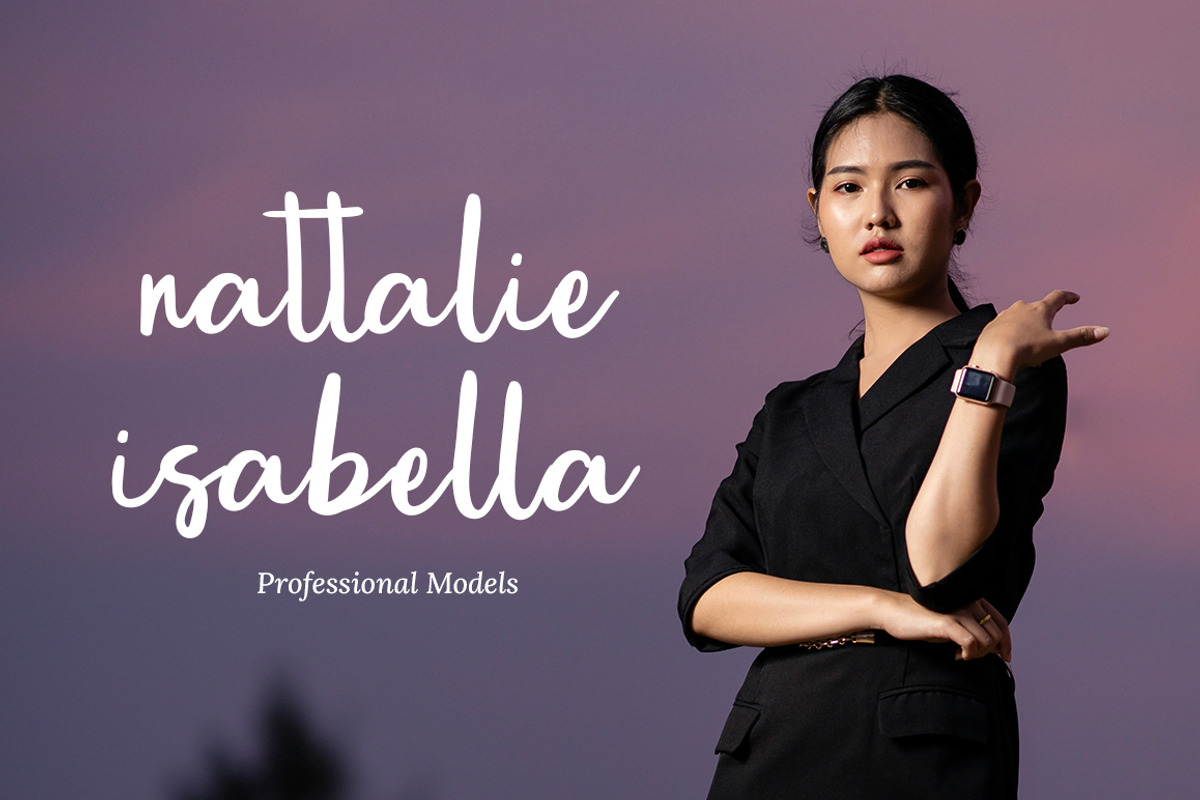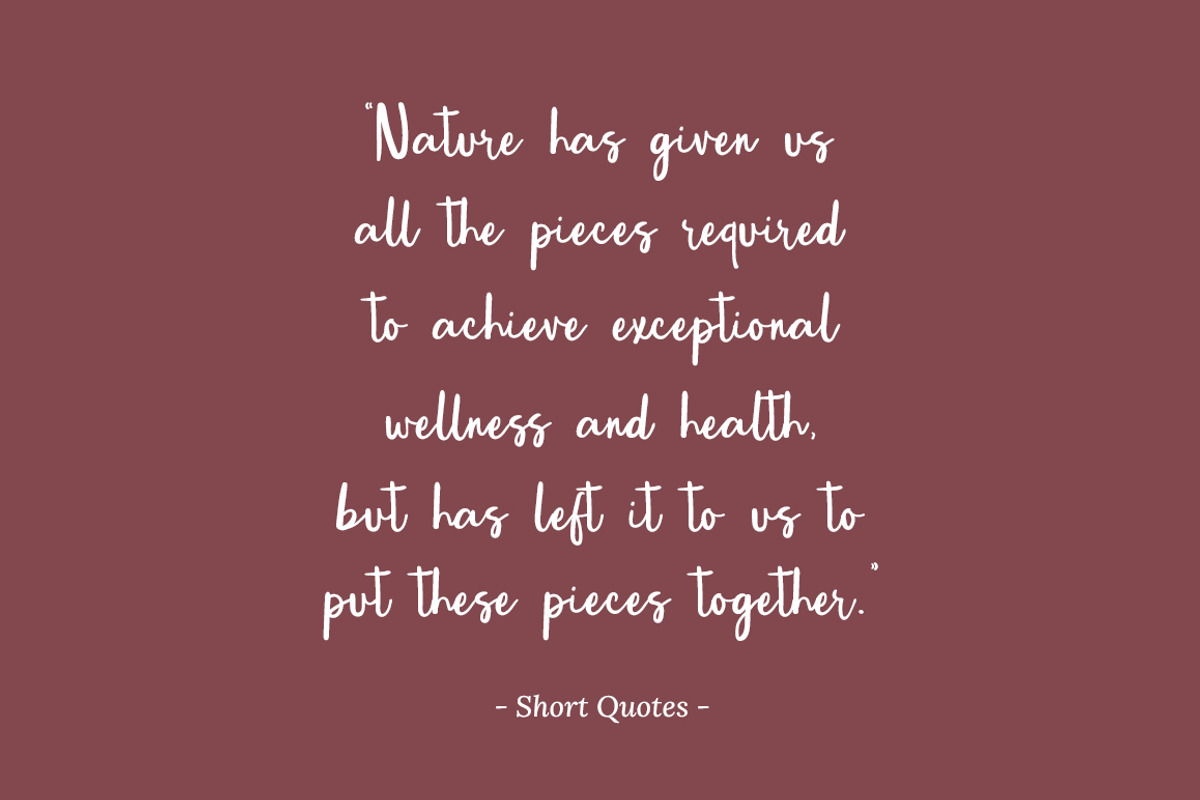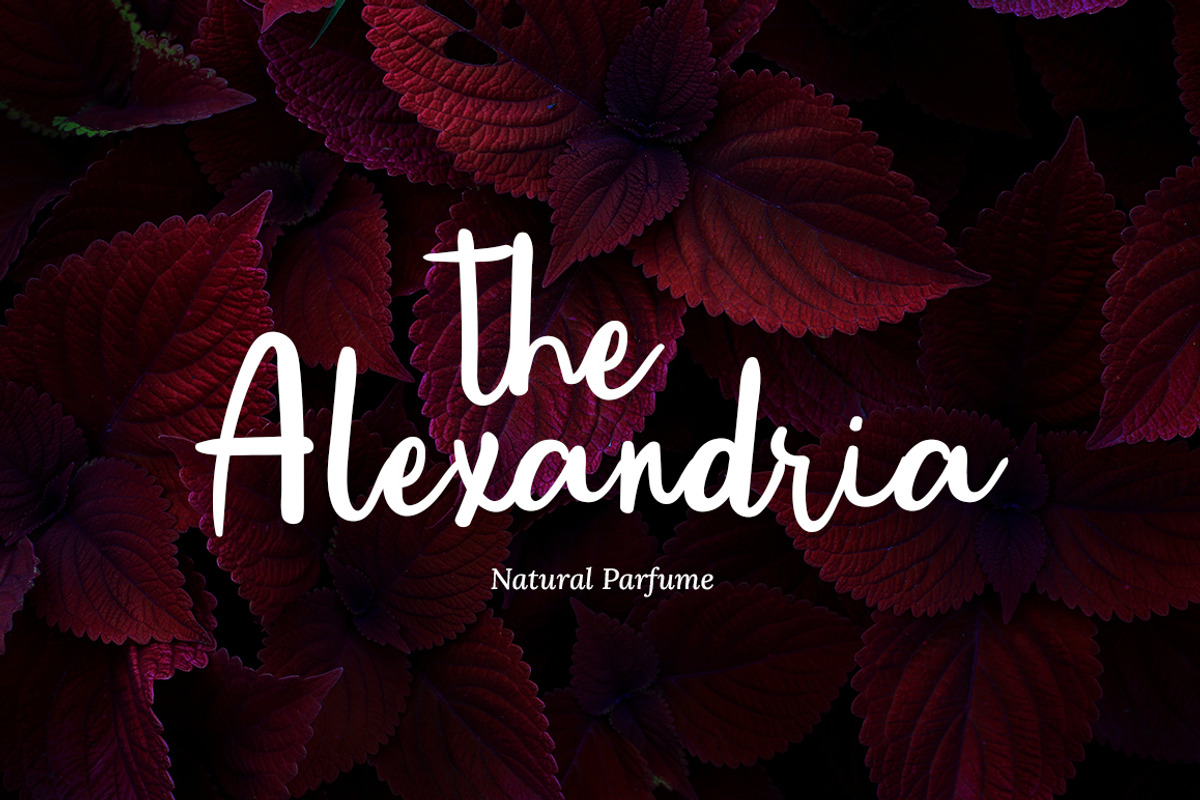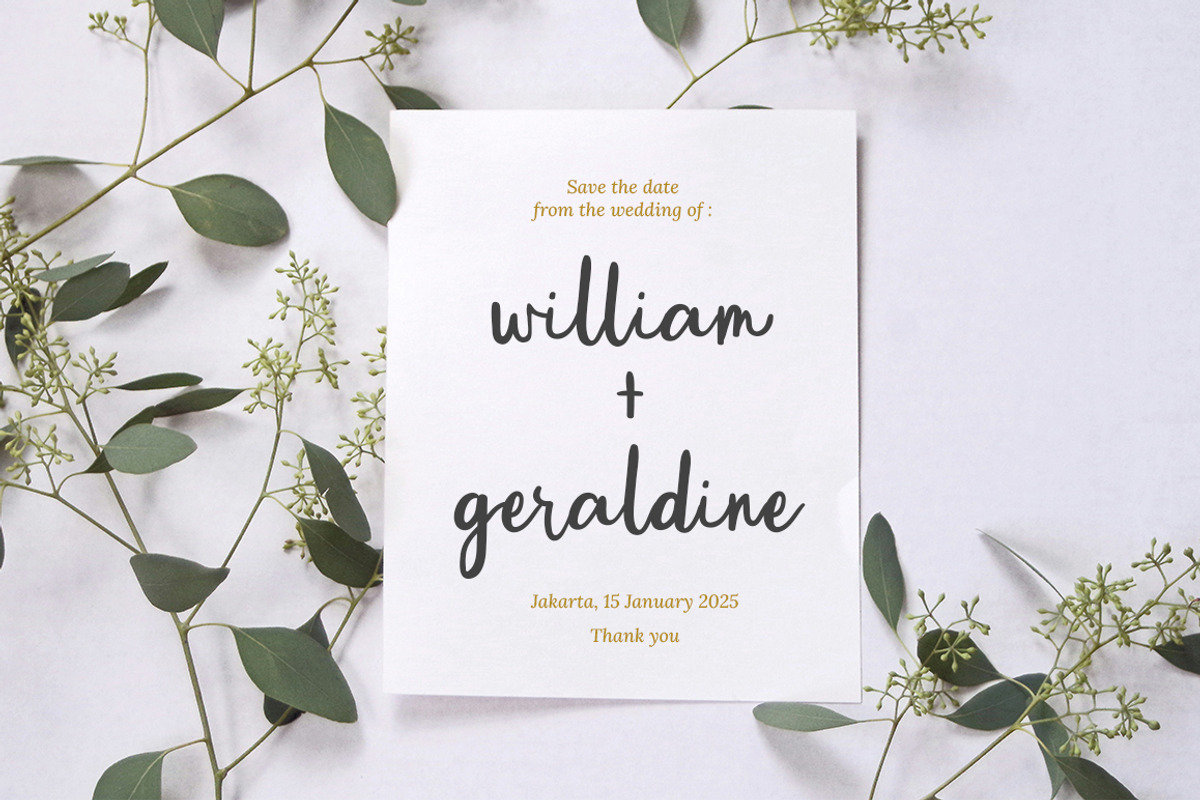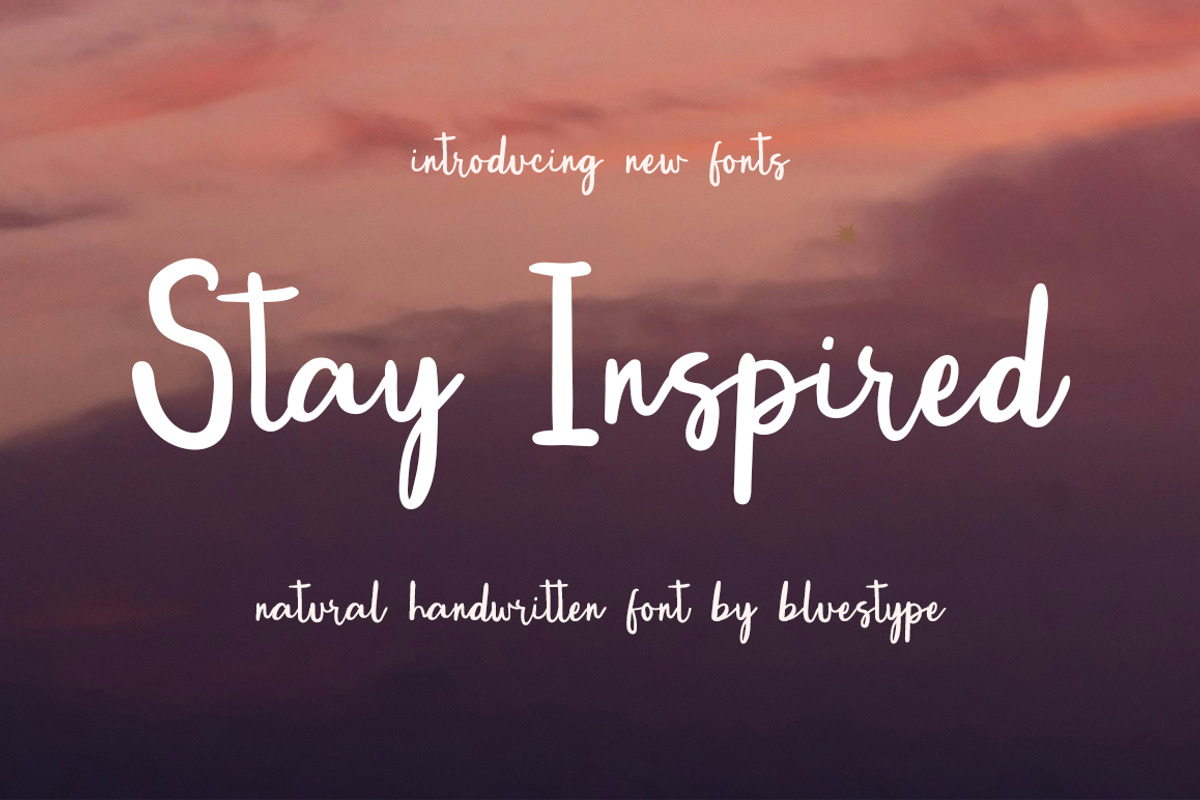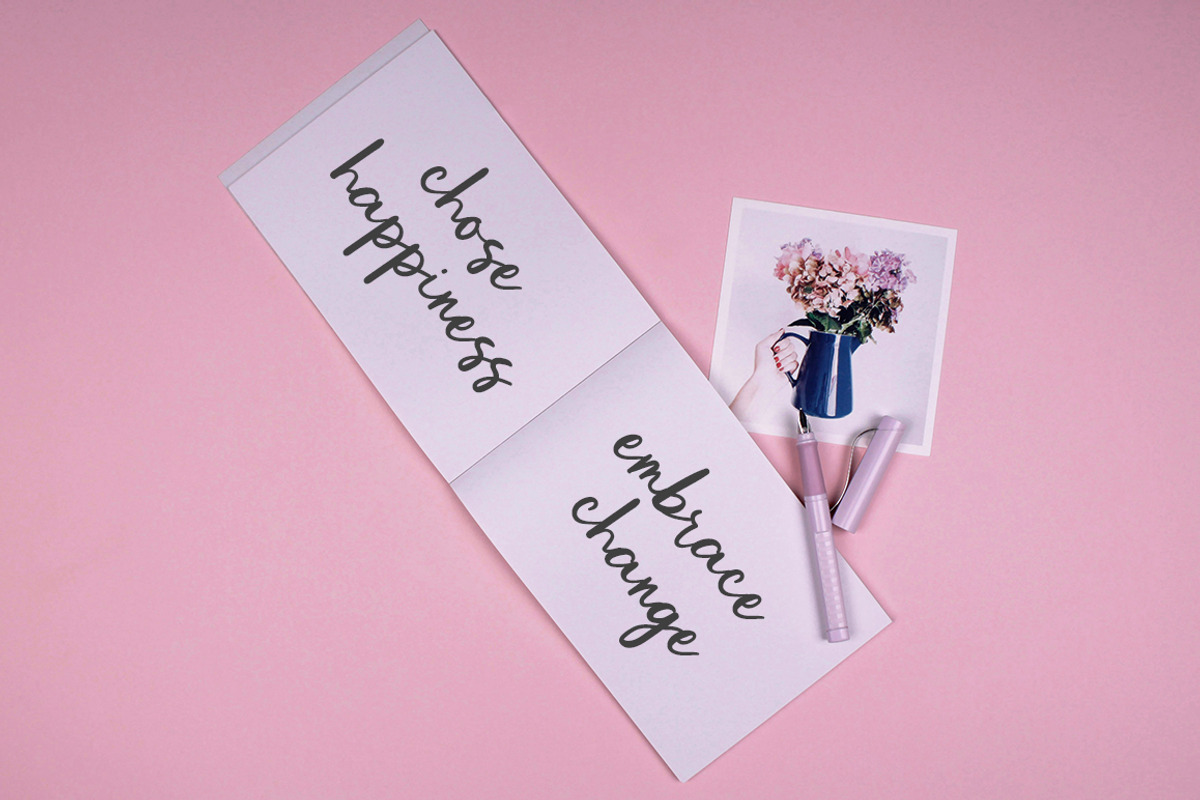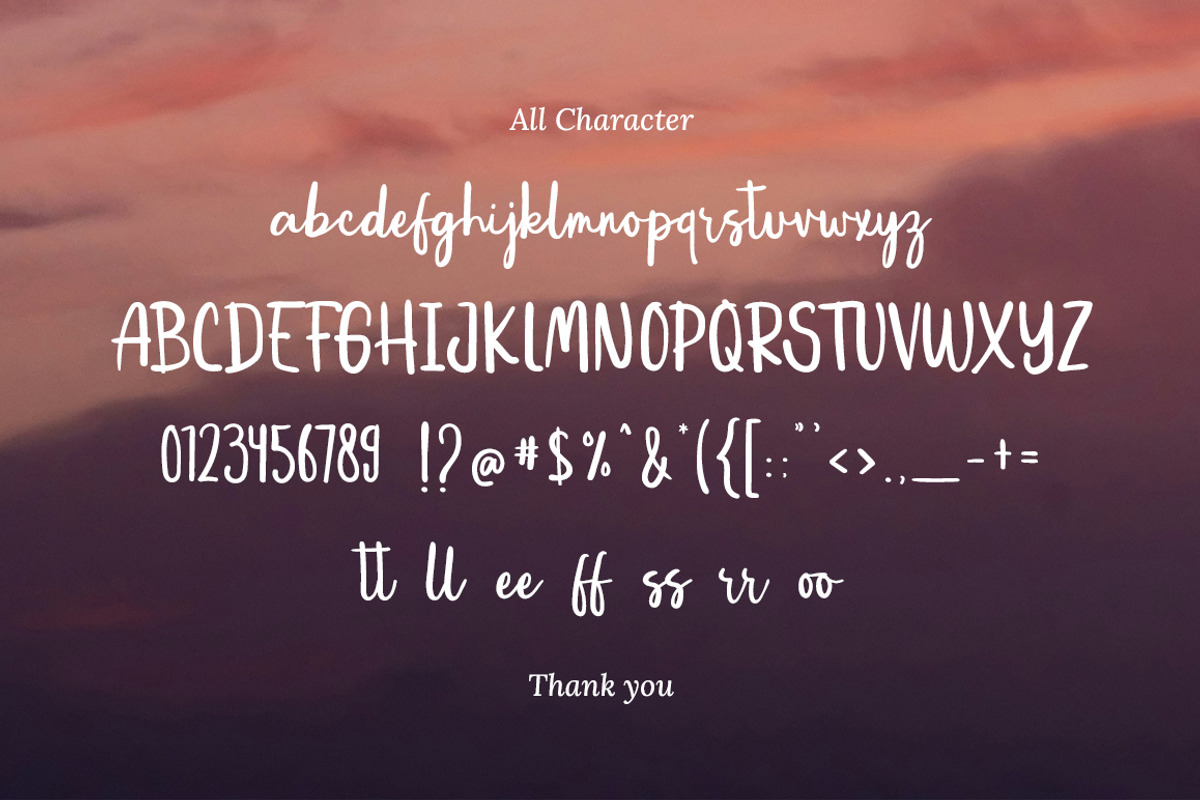
Stay Inspired - Natural Handwritten
Introducing Stay Inspired: Natural Handwriting Font
Stay Inspired is a captivating handwritten font that exudes a natural and authentic charm. Its organic strokes and smooth flow bring a sense of warmth and creativity, making it perfect for a wide range of design projects.
Whether you're crafting heartfelt invitations, creating personal branding, or adding a touch of personality to your social media posts, Stay Inspired adds a genuine and inviting touch to any composition.